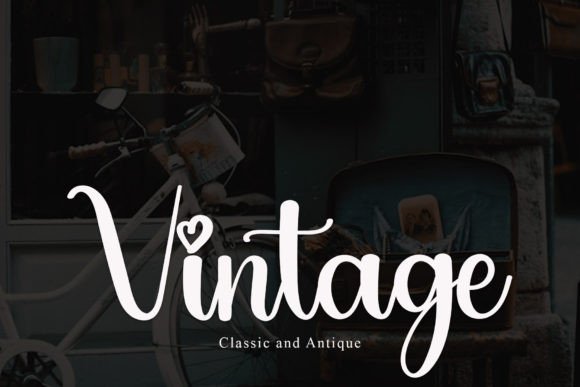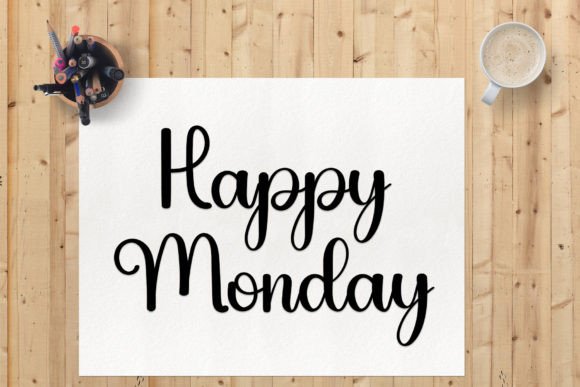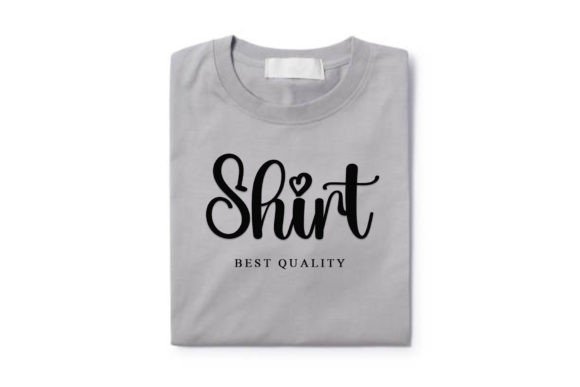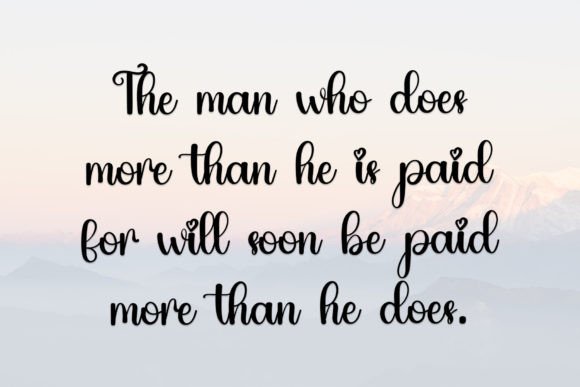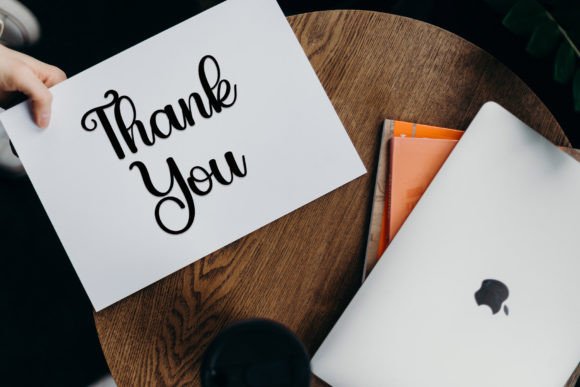
The Perfect Handwritten Touch: A Deep Dive into Autumn Better Font
I’ll never forget the time I was working on a wedding invitation project, and my client asked for a font that would make their special day feel like a fairytale. I scoured the internet, trying out font after font, but nothing seemed quite right. That was until I stumbled upon Autumn Better Font. This stunning handwritten font has been a game-changer for me, and I’m excited to share its beauty with you.
An Honest Review of Autumn Better Font
- ✨ Elegant and stylish: Autumn Better Font is perfect for designs that need a touch of sophistication.
- ✅ Highly versatile: From wedding invitations to business cards, this font adapts seamlessly to any project.
- 💕 Emotionally resonant: The handwritten quality of Autumn Better Font makes it perfect for conveying warmth and personality.
While Autumn Better Font is an excellent choice, there are a few things to keep in mind:
- 🤔 Requires OpenType features: To get the most out of Autumn Better, you’ll need to use software that supports OpenType features.
The Designer Inspiration Behind Autumn Better Font
Autumn Better Font was designed with the intention of capturing the essence of handwritten elegance. The designer aimed to create a font that would evoke feelings of warmth and sophistication, perfect for special occasions and everyday designs alike.
Q: What makes Autumn Better Font unique?
A: Autumn Better Font stands out due to its elegant, handwritten quality and support for OpenType features.
Q: Is Autumn Better Font difficult to read?
A: No, Autumn Better Font is designed to be legible, even at smaller sizes, making it perfect for body text and captions.